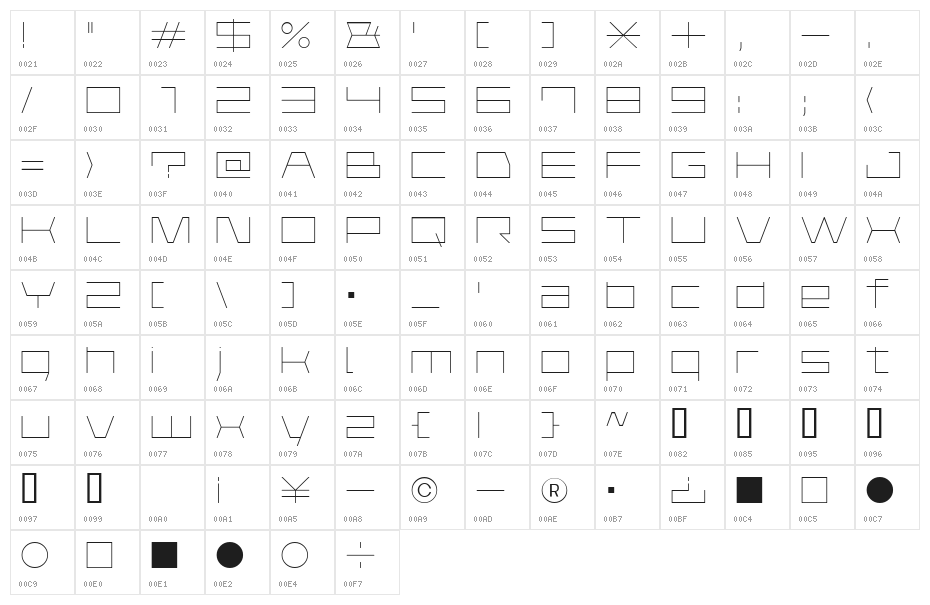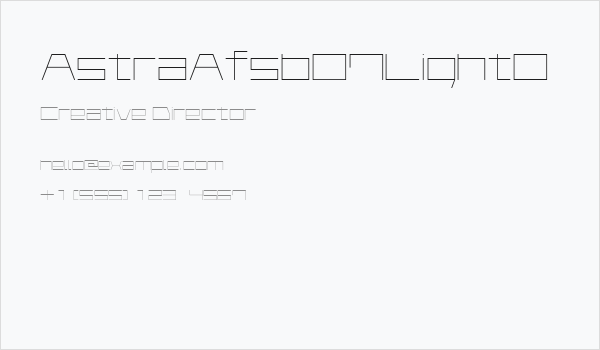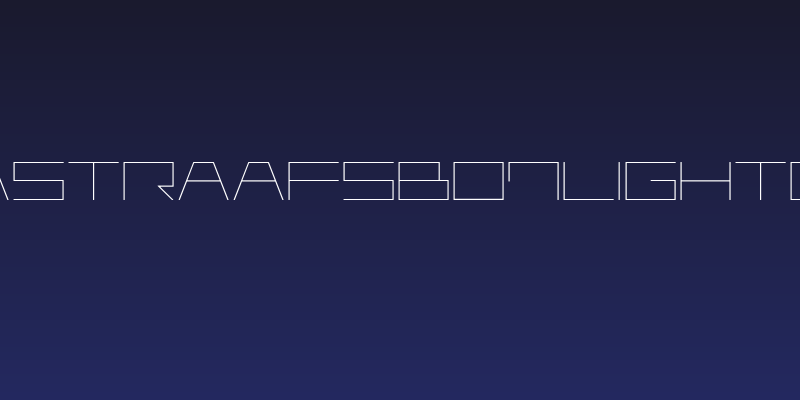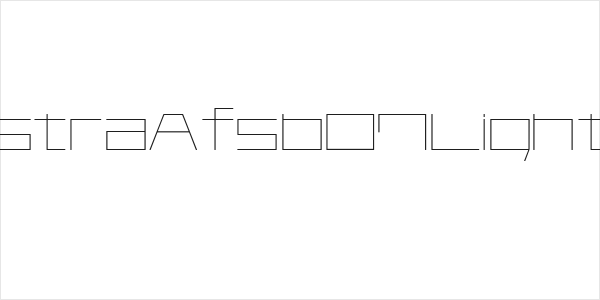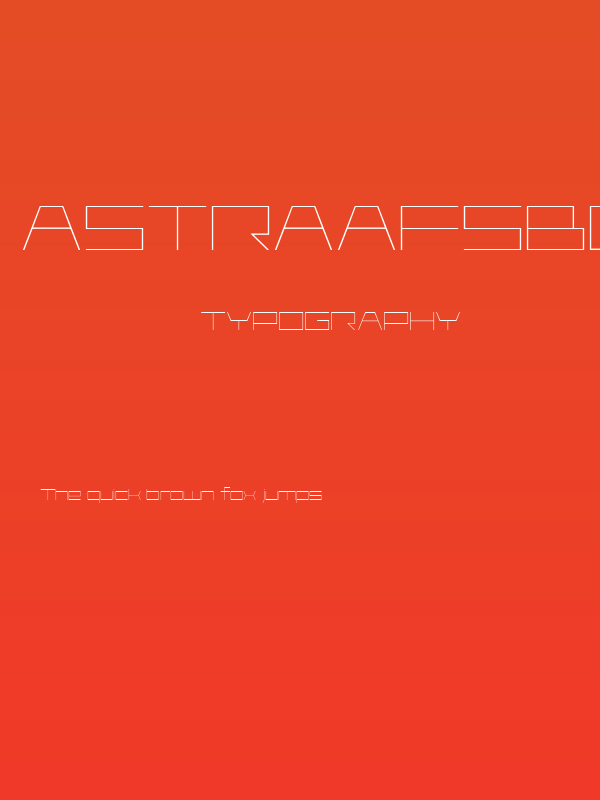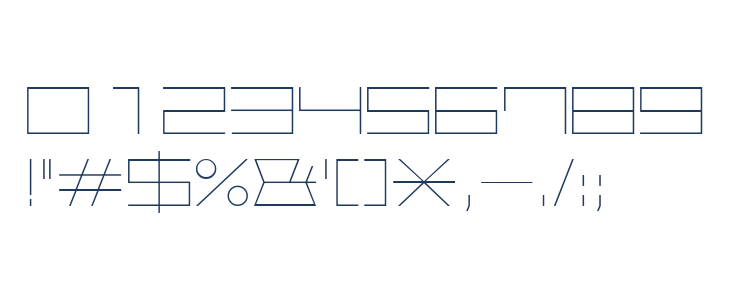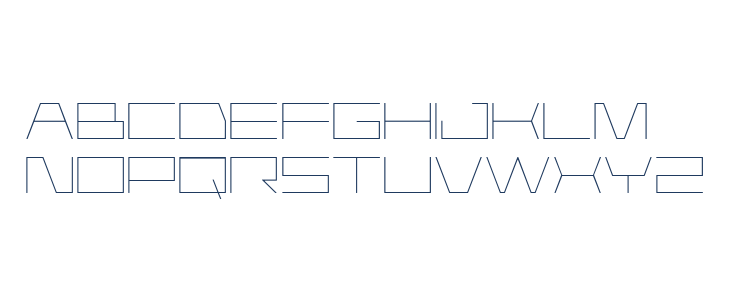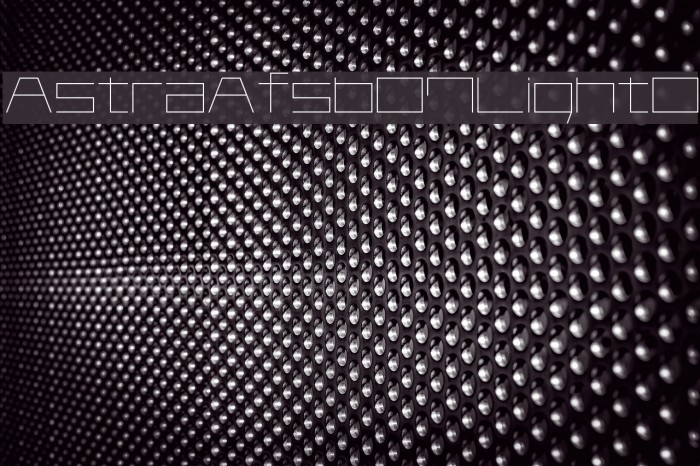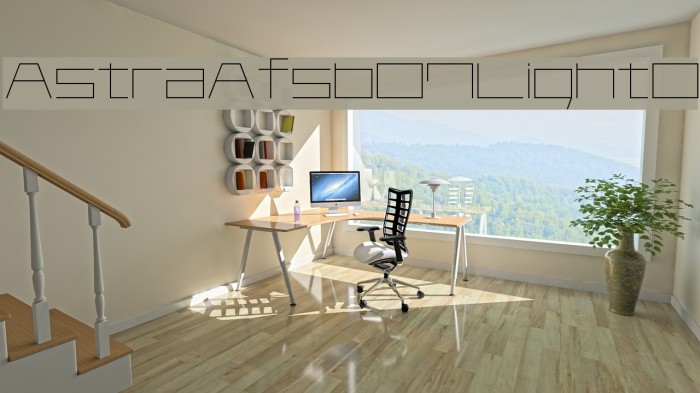
AstraAfsb07LightO Font
AstraAfsb07LightO Description
This font features a modern, geometric design with a minimalist aesthetic. The characters are constructed with thin, straight lines and sharp angles, giving it a futuristic and technical appearance. The uppercase and lowercase letters maintain a consistent height, while the numerals and special characters are designed to complement the overall style. The font's clean lines and open spacing make it highly legible, even at smaller sizes. Its unique structure is ideal for projects that require a contemporary and innovative look.
| Use Case | Headlines, Logos, Digital interfaces |
| Proposed Projects | Ideal for tech branding, modern posters, digital interfaces, and futuristic designs. |